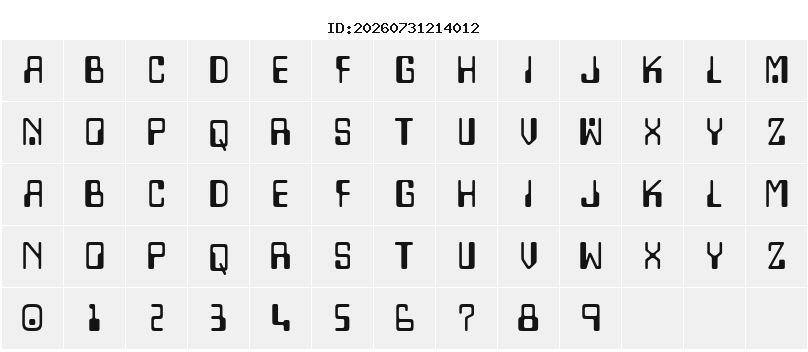
• Font Name: Lazenby Computer
• Font Style: Smooth
• Full Font Name: Lazenby Computer Smooth
• Designer: Andrew Young
About Lazenby Computer.ttf
Lazenby Computer.ttf is a modern, elegant sans-serif font designed for ultimate readability and visual harmony. Perfect for branding, headlines, web design, and print materials.